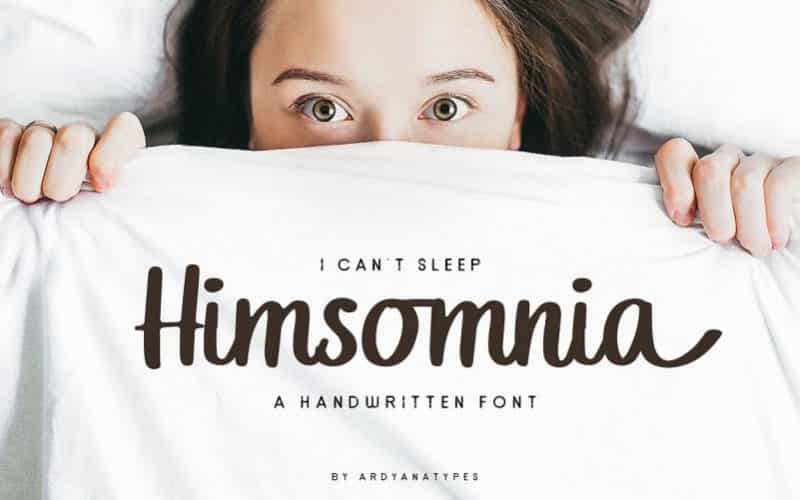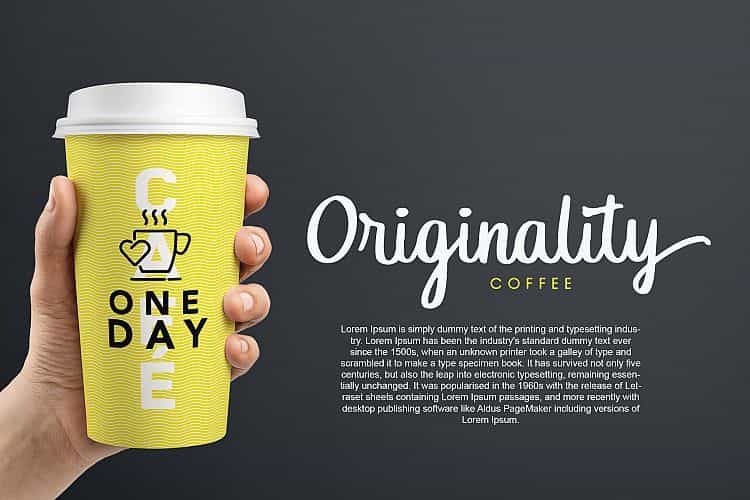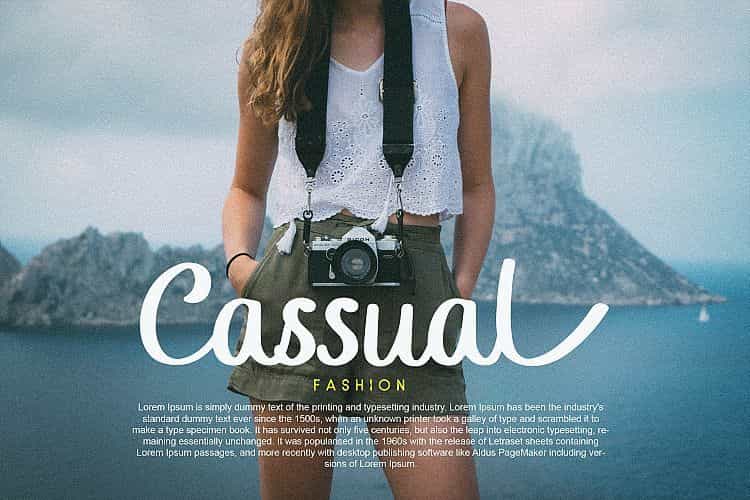
Himsomnia is clear and simple font and can be characterized as casual font. Himsomnia also has many open type features that you will like, these fonts are suitable for logos, quotes, clothing designs, wedding invitations and much more. One can use ligature, different types of styles, swash, etc. to create the letter of one’s choice.